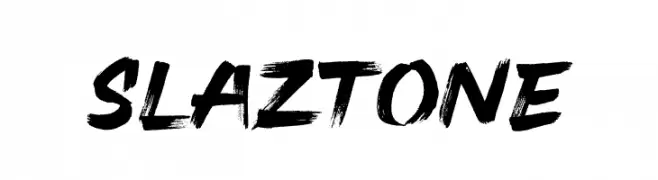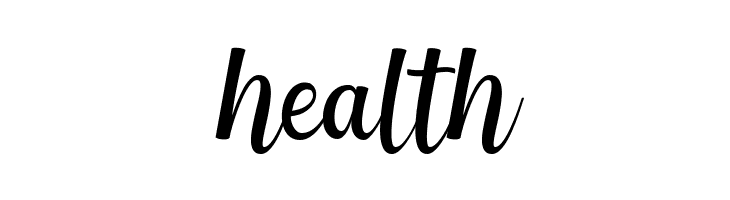
A bold, brush-style font with dynamic and textured strokes.
A fluid and elegant script font with dynamic letterforms.
A flowing, elegant script font with ornate uppercase and harmonious lowercase letters.
A bold, playful handwritten font with a friendly and energetic style.
A fluid and elegant script font with smooth, flowing lines and cursive letterforms.
A flowing, cursive handwritten font with smooth, connected strokes.
A playful, handwritten font with bold, energetic strokes.
A bold, brush-style font with dynamic, hand-painted strokes.
A dynamic, flowing script font with a handwritten calligraphy style.
A bold, dynamic script font with sweeping, fluid strokes and a modern calligraphic style.